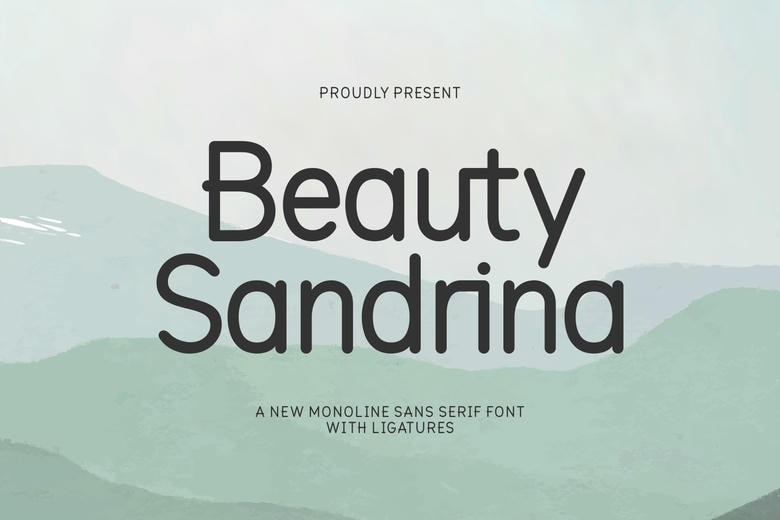
Beauty Sandrina Font
Beauty Sandrina is a sleek and modern sans serif font with a monoline design. It features clean lines and an elegant look, making it perfect for stylish designs. This font is easy to read and adds a touch of sophistication to any project.
Beauty Sandrina Sans Serif Font